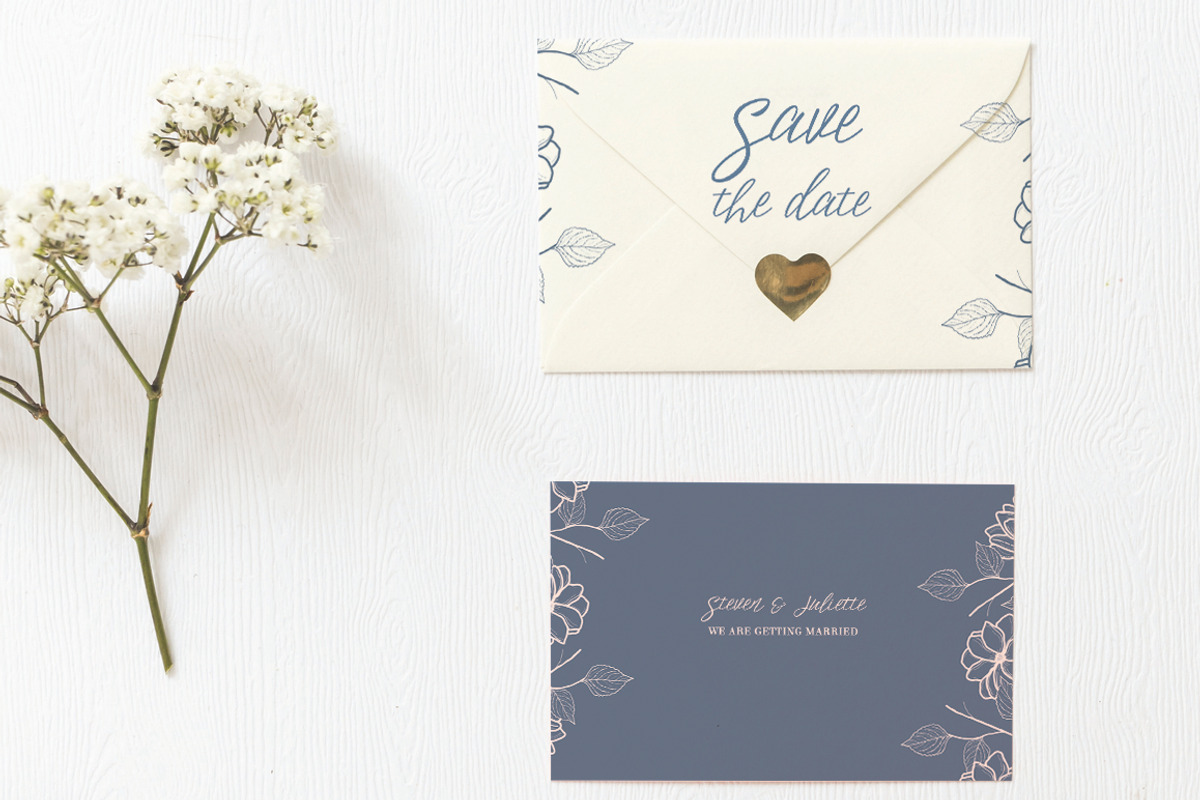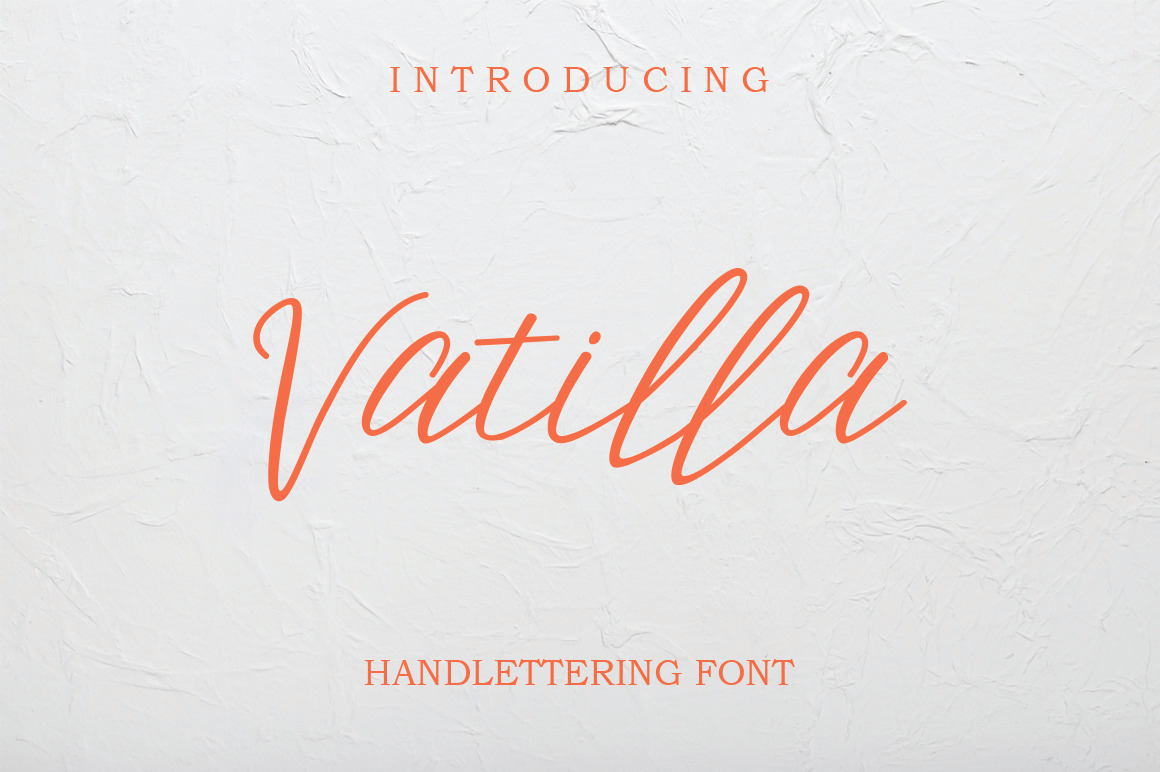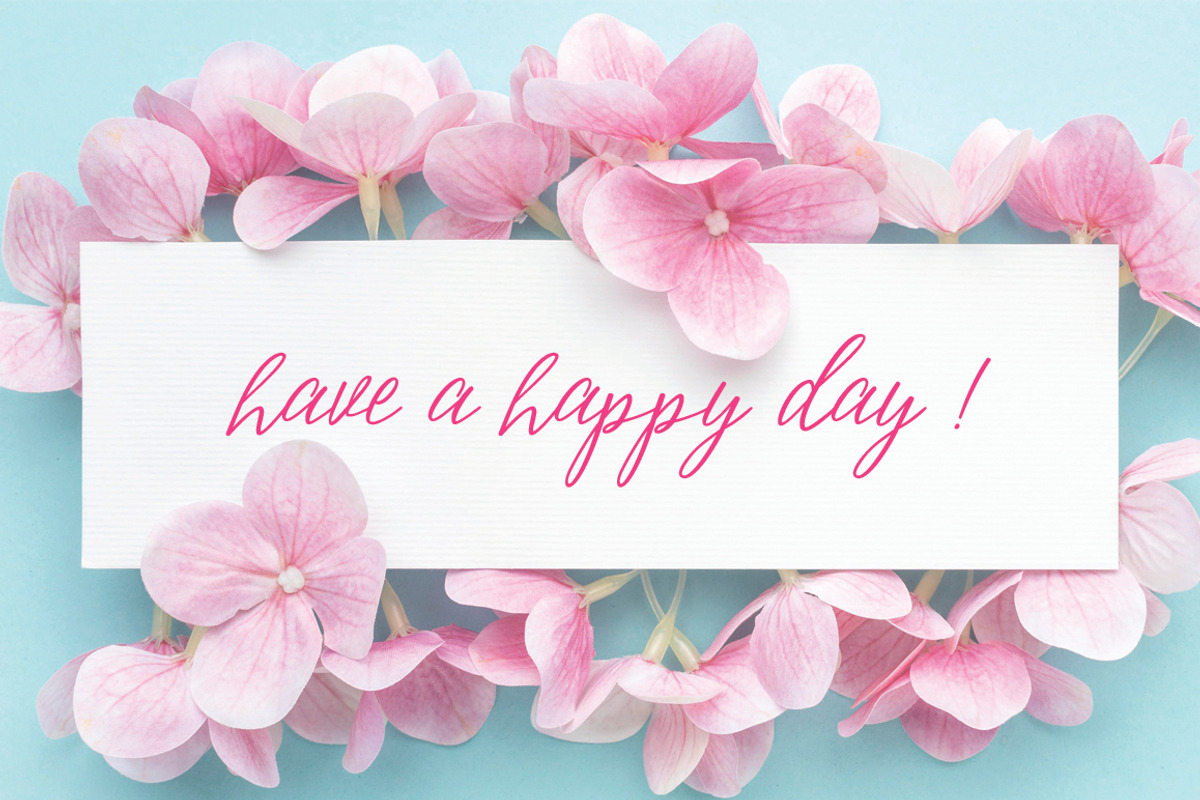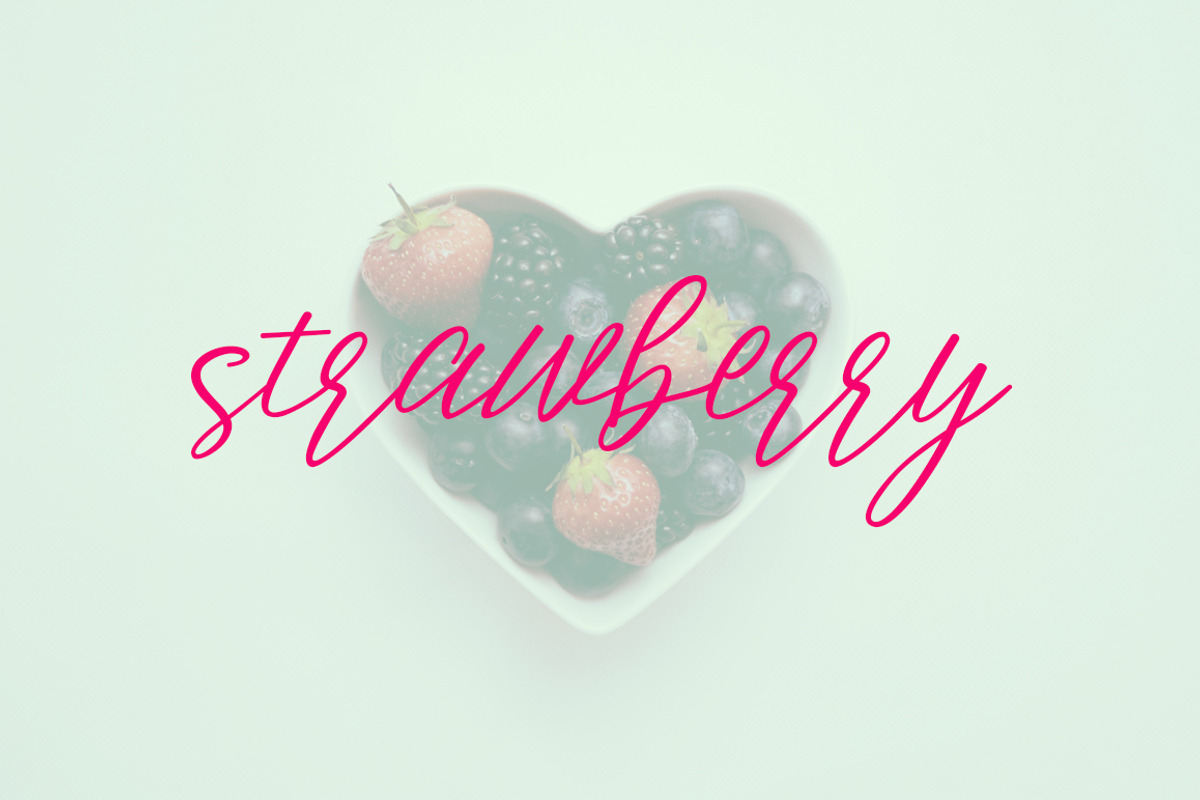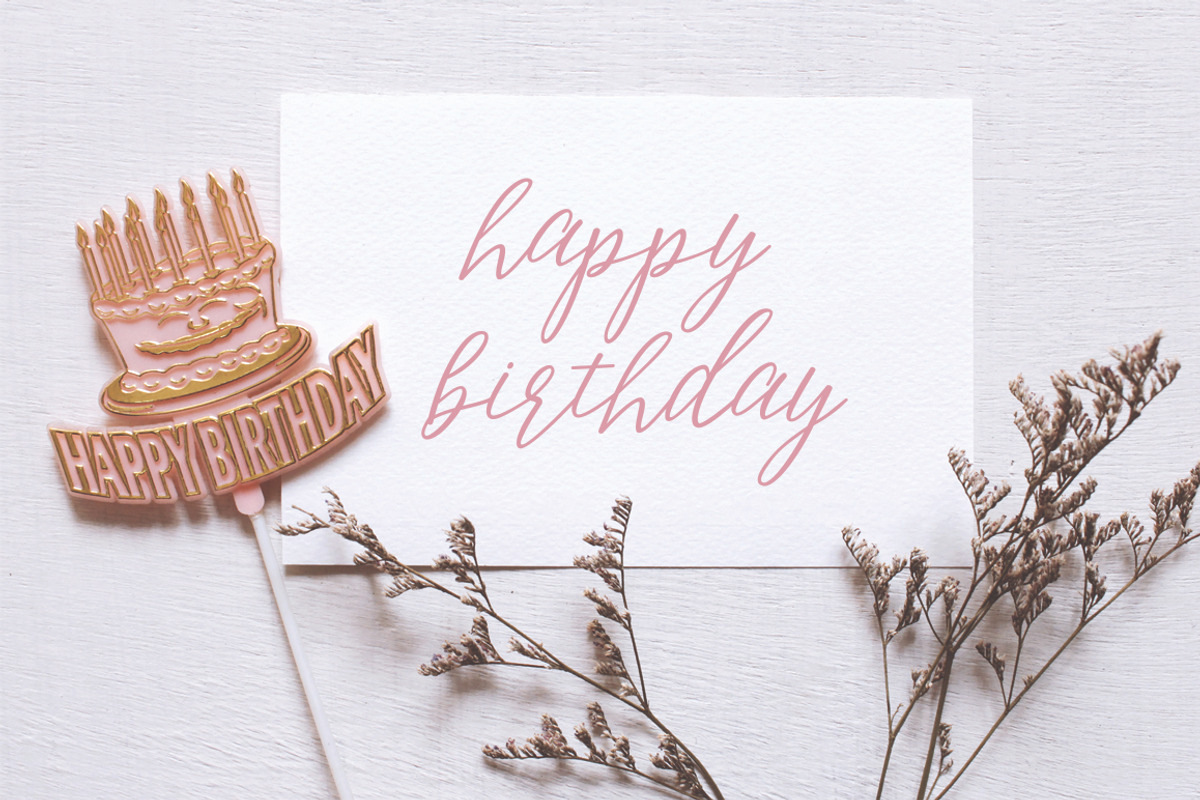
Vatilla // Hand lettering Font
Vanilla is a handwritten calligraphy font with a unique style. These fonts are perfect for Cards, Greetings, quotes, labels, t-shirts, sign-ins, social media, templates and more! This font includes uppercase and lowercase letters, punctuation, ligatures, and more.